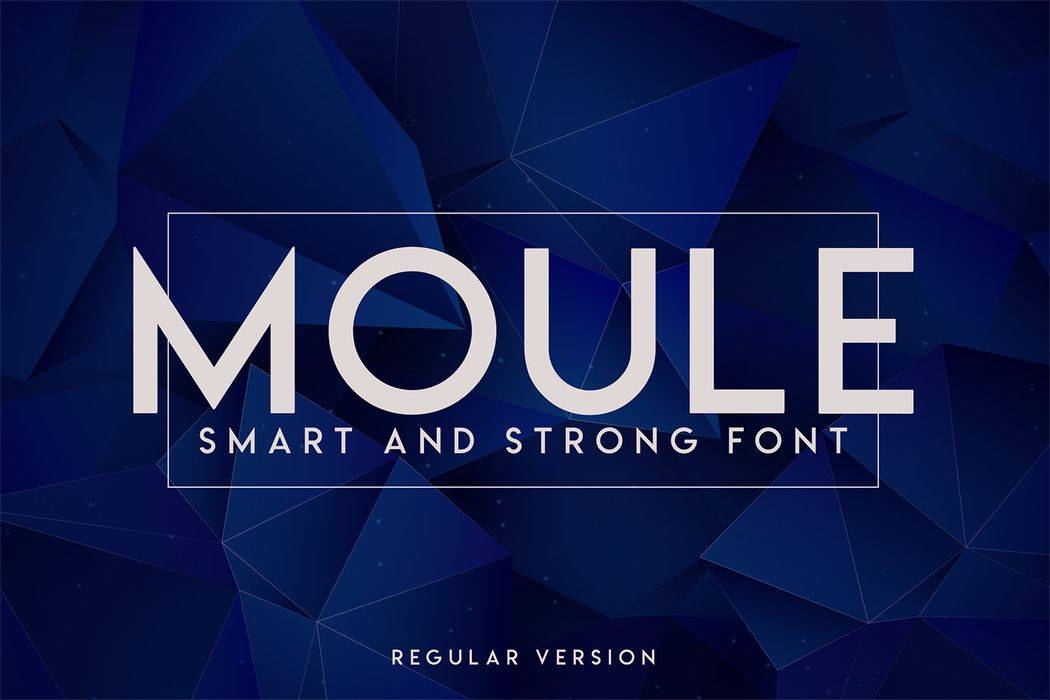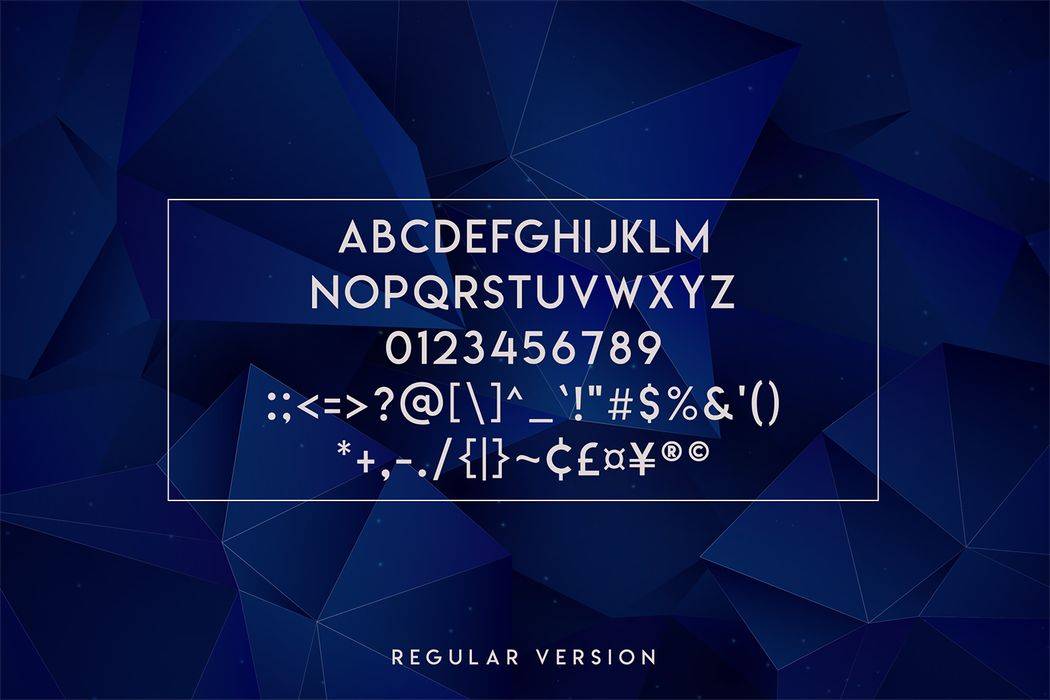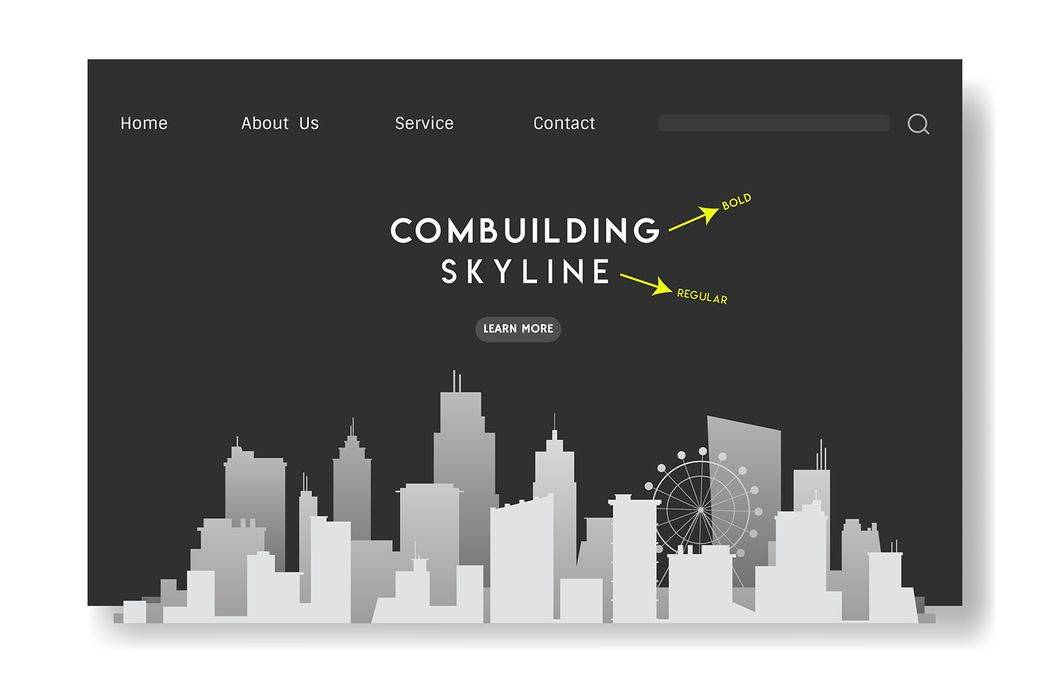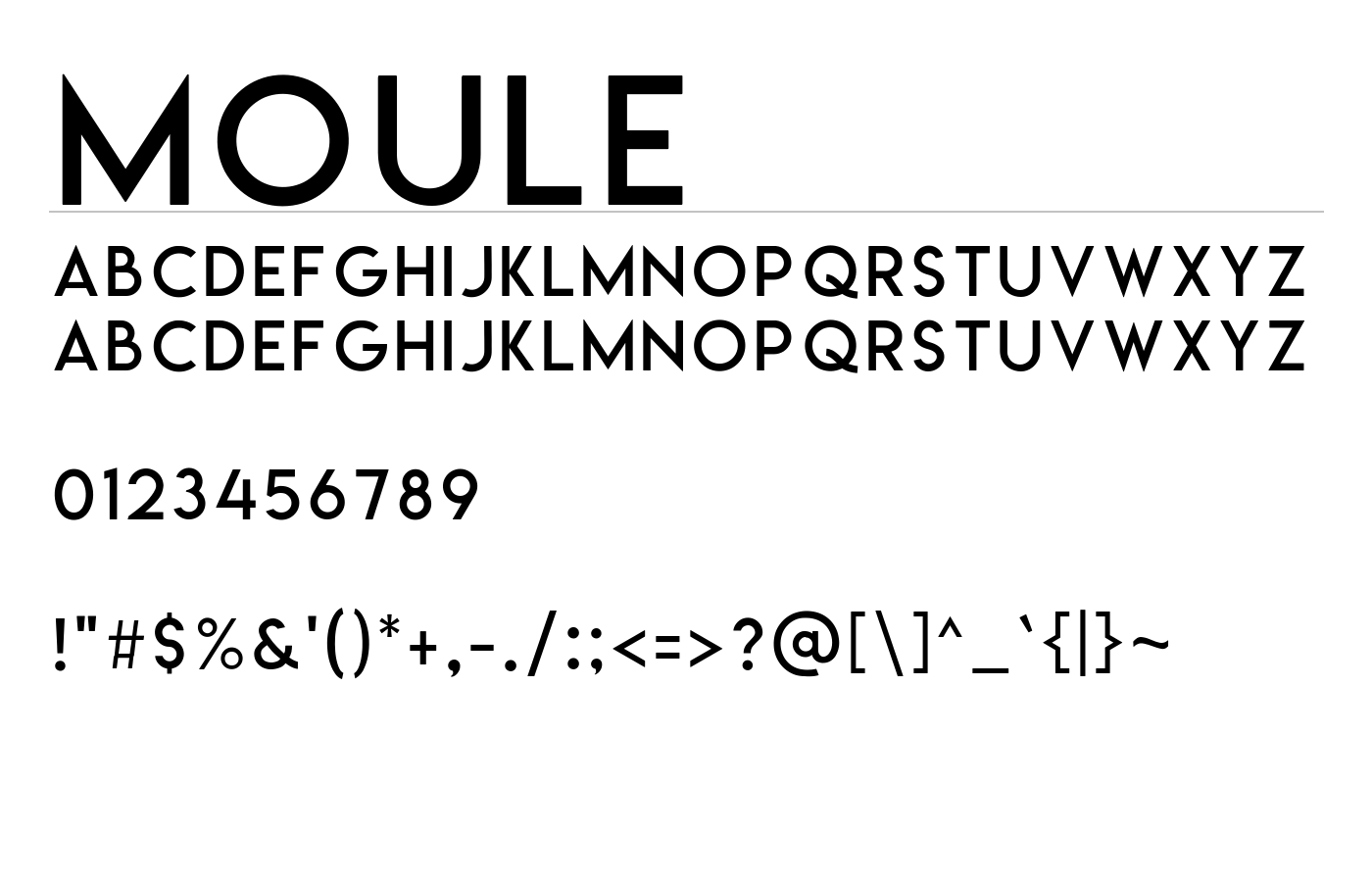
Moule is a clean and modern sans serif font characterized by its geometric shapes and balanced proportions. With a slightly condensed width, medium stroke contrast, and simple stroke terminals, it offers a contemporary and professional feel that works well for headlines, logos, and editorial design. Its clear letterforms and elegant minimalism make it a versatile choice for branding and digital use where readability and style matter.
Moule Font
About Moule Font